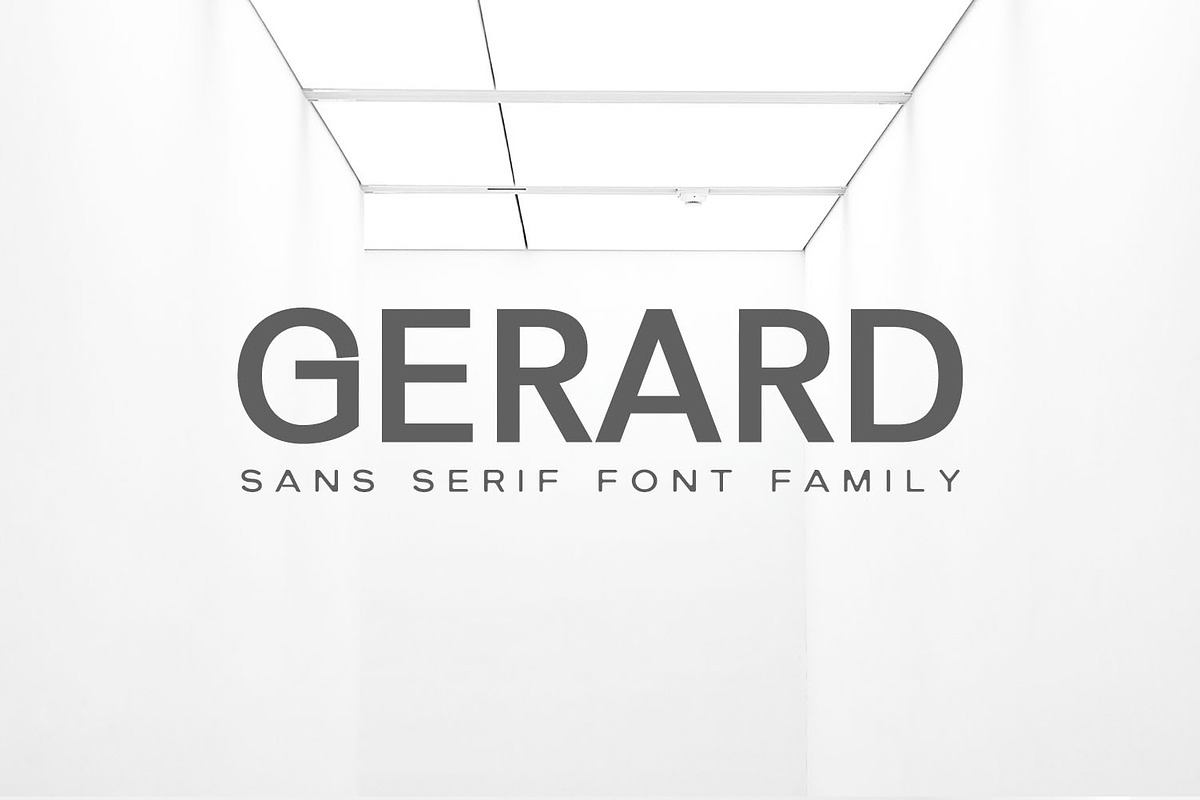
Gerard Sans Serif Font Family Free Download
Gerard Sans Serif Font Family Free Download is a modern and versatile typeface family that offers a clean, professional look with a touch of personality. With multiple weights and styles, Gerard is perfect for branding, editorial layouts, websites, corporate designs, and presentations. Its simple, geometric letterforms ensure clarity and legibility across various applications.
The Gerard Sans Serif family is ideal for both large headlines and smaller text blocks, providing flexibility and style for any design project. Whether you're working on a minimalist design or a bold, creative campaign, Gerard ensures that your message is communicated effectively.